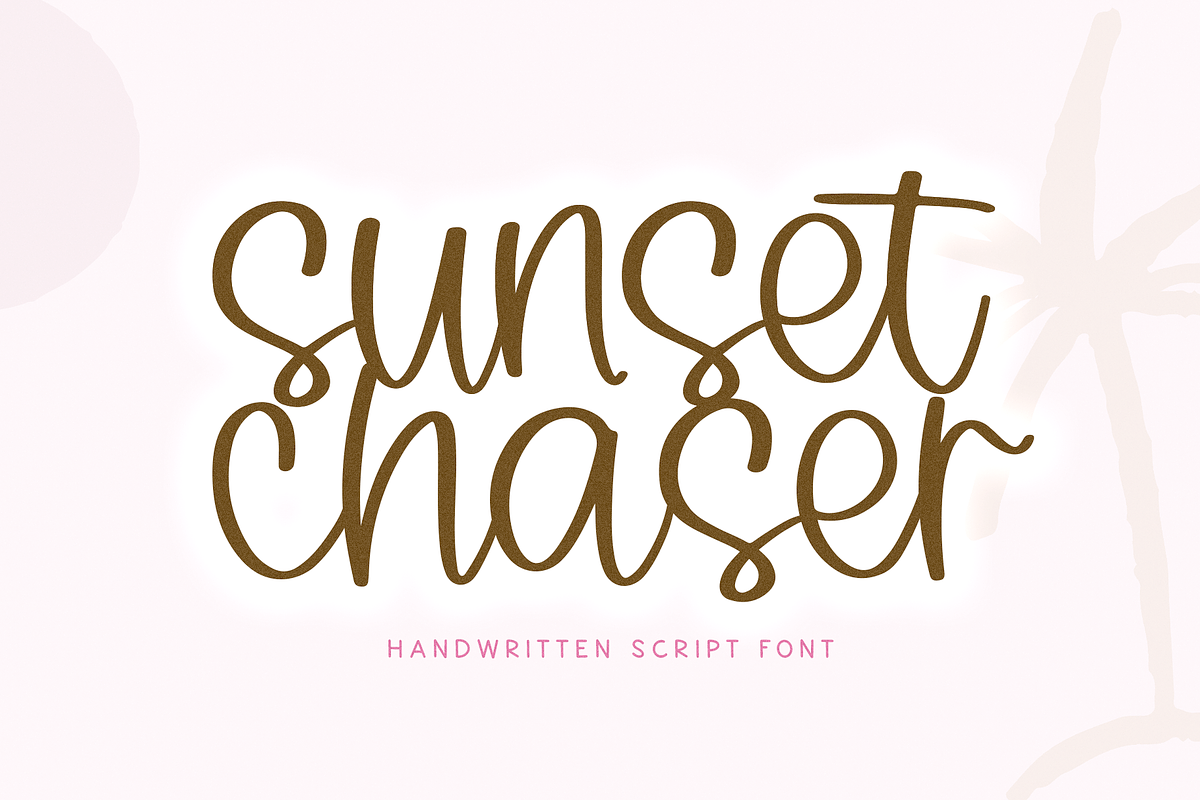
Sunset Chaser | Bouncy Script Font Free Download
Sunset Chaser | Bouncy Script Font Free Download is a playful and lively script typeface that brings energy and movement to your designs. Featuring bouncy letterforms and fluid curves, this font is perfect for creating fun, whimsical projects such as branding, greeting cards, social media graphics, posters, and more.
Its casual, energetic style makes it ideal for projects that require a touch of spontaneity and charm. Whether you're designing for a trendy brand, a playful event, or a creative campaign, Sunset Chaser adds a joyful, hand-crafted feel to your typography.